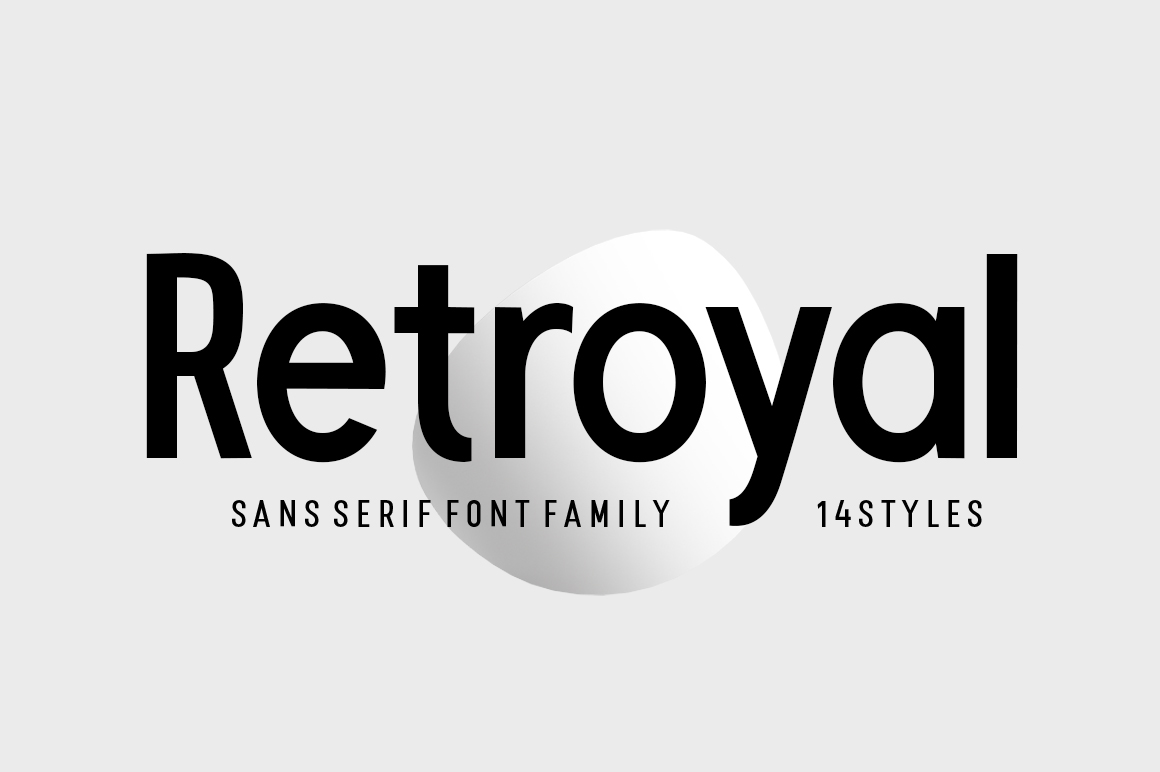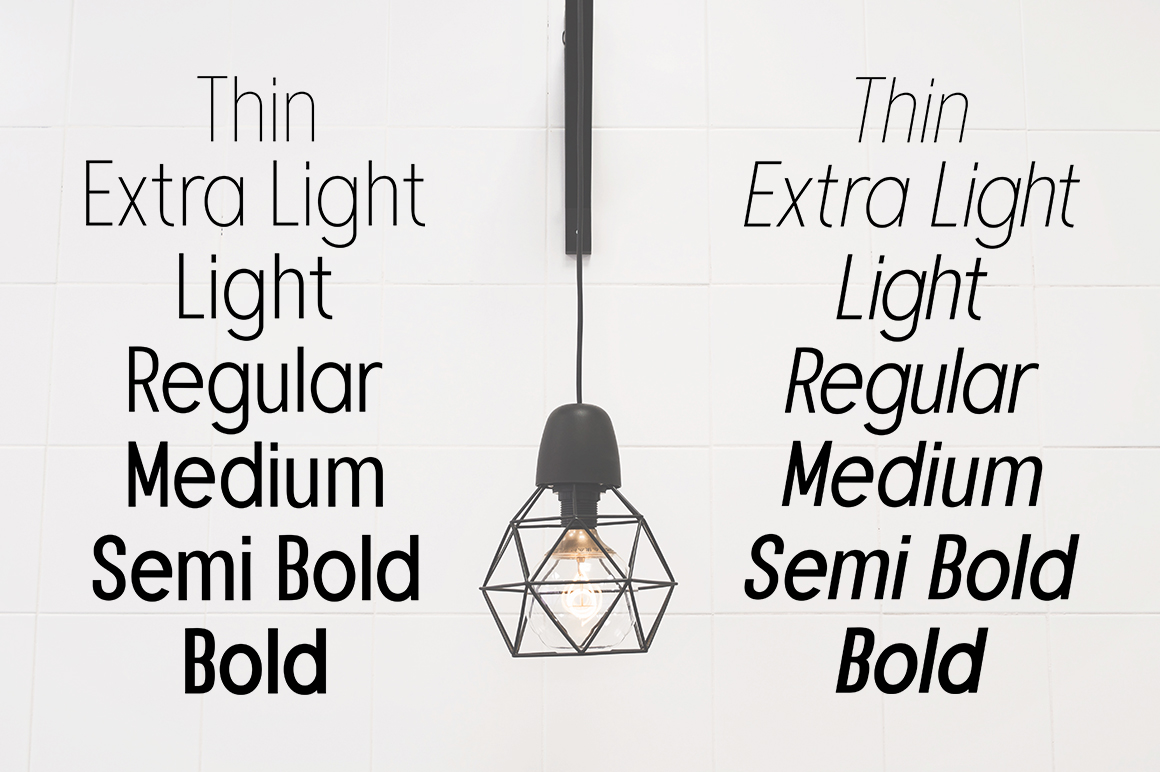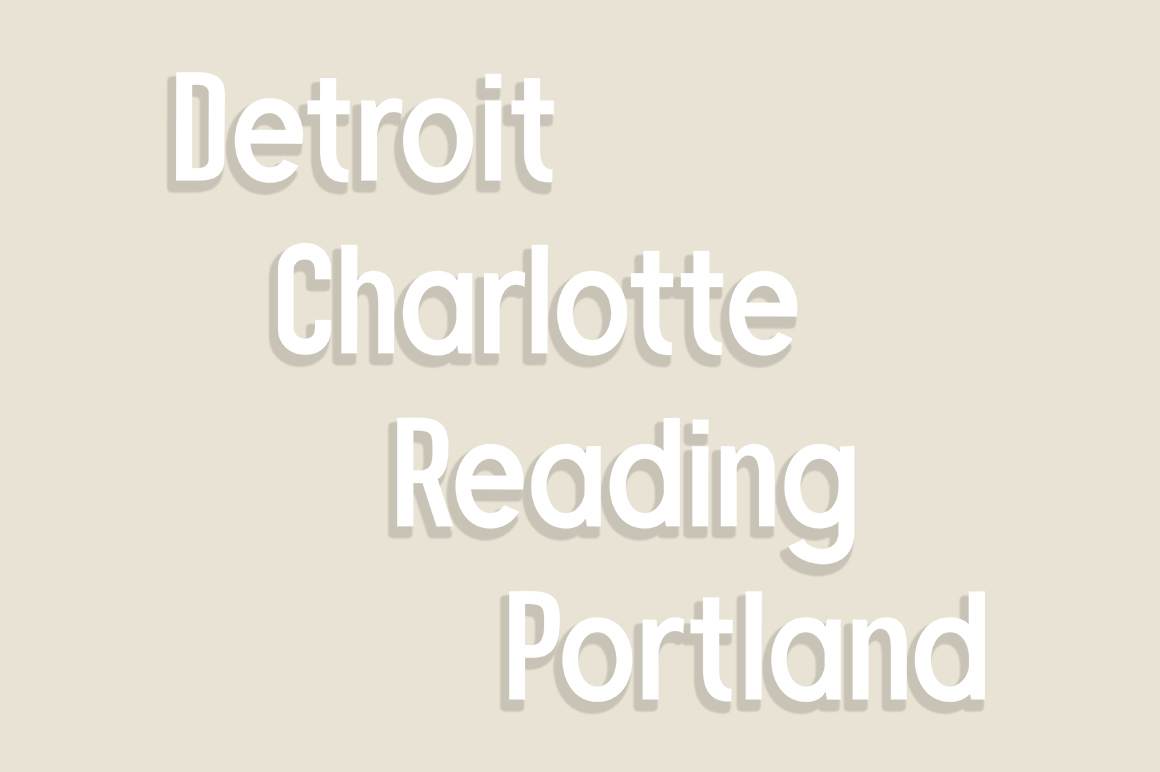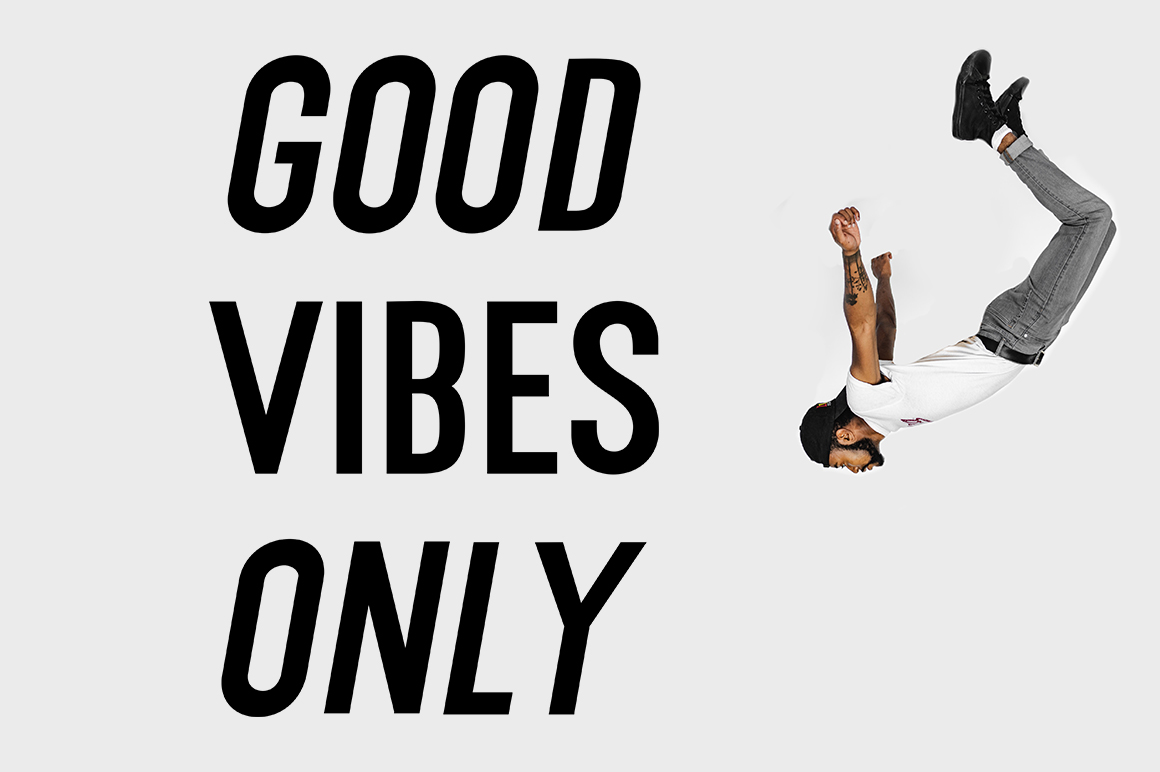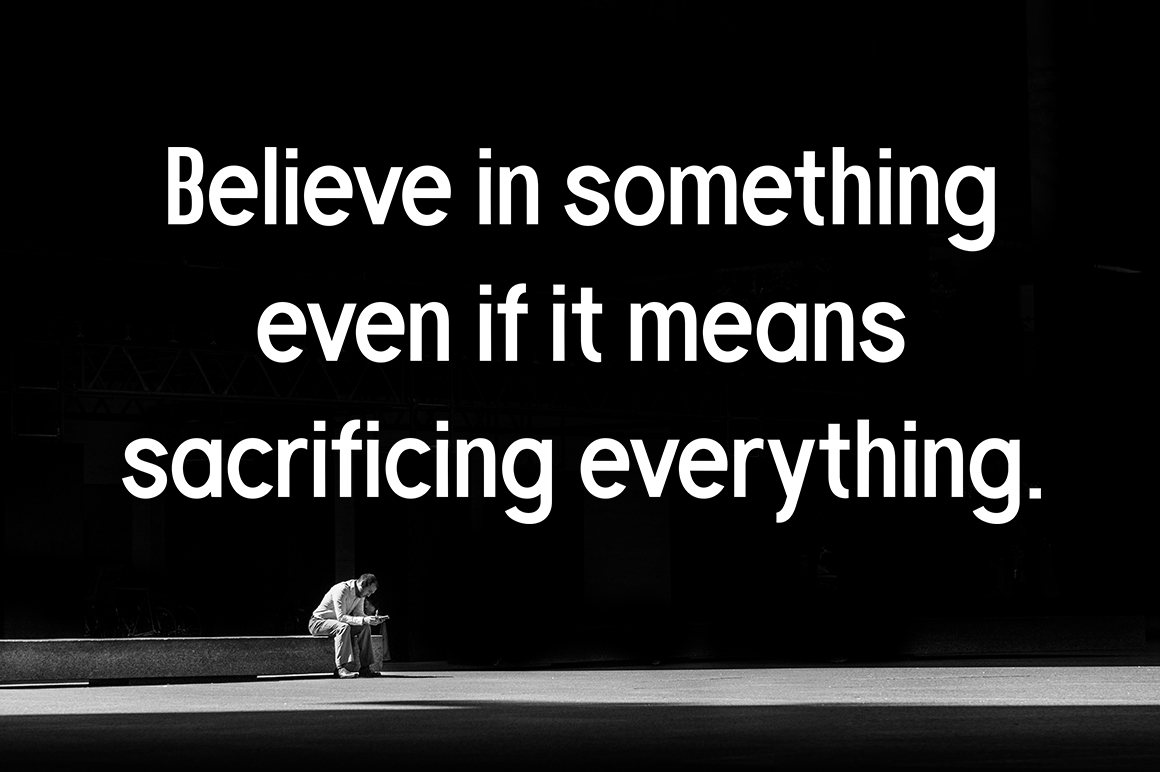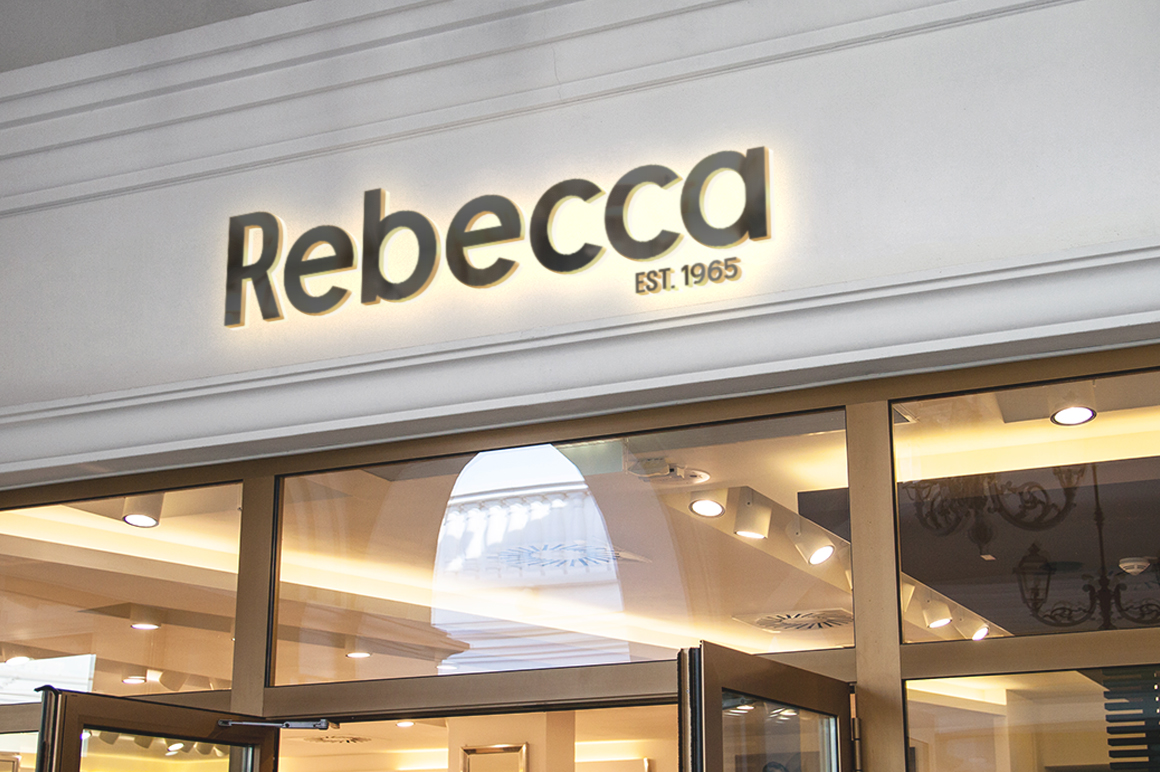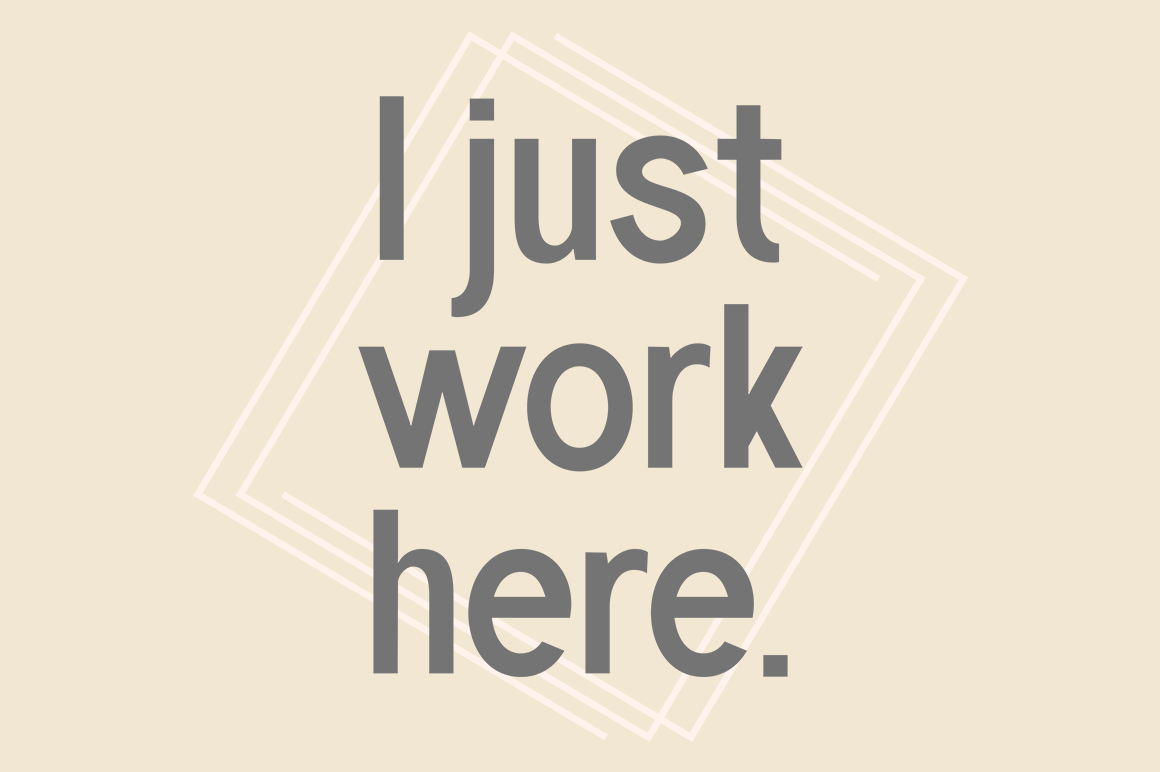
INTRODUCING
Retroyal is an sans serif typeface that boasts beautiful lines & minimalis style. With 7 weights plus matching italics. Simple geometry and with humanist nuance that adds warmth. t’s a perfect choice for branding, magazines, posters, advertising, packaging, headlines, logos, web, print etc.
Retroyal Sans Serif Font Family